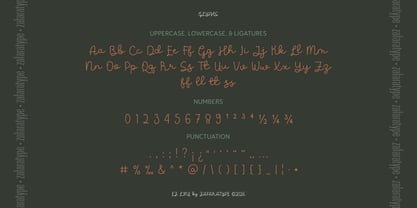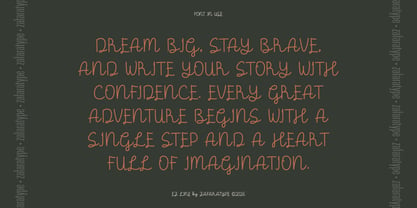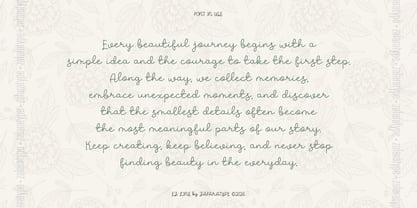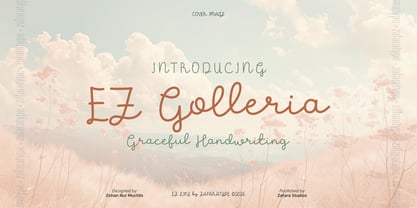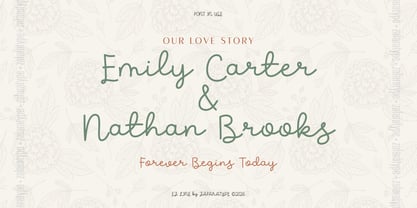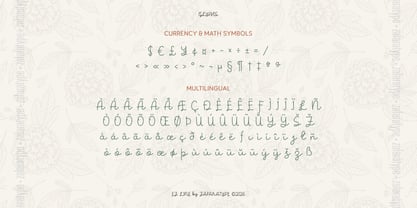
EZ Golleria
by Zafara Studios
The EZ Golleria Font Family was designed by Zohan Nur Muchlis and published by Zafara Studios. EZ Golleria contains 1 styles. More about this family
EZ Golleria is a cheerful and expressive handwritten script that blends playful personality with graceful simplicity. Featuring an upright style, smooth curves, and naturally flowing strokes, it brings a fresh and inviting feel while remaining clean, balanced, and easy to read.
Designed to capture the warmth of genuine handwriting, EZ Golleria is perfect for branding, packaging, greeting cards, children's projects, social media, invitations, quotes, and creative stationery. Whether you're creating something joyful, heartfelt, or modern, it adds a friendly and authentic touch to every design.
The details:
• 247 glyphs: Uppercase, lowercase, ligatures, numbers & punctuation, symbols & accents, multilingual support
Designers: Zohan Nur Muchlis
Foundry: Zafara Studios